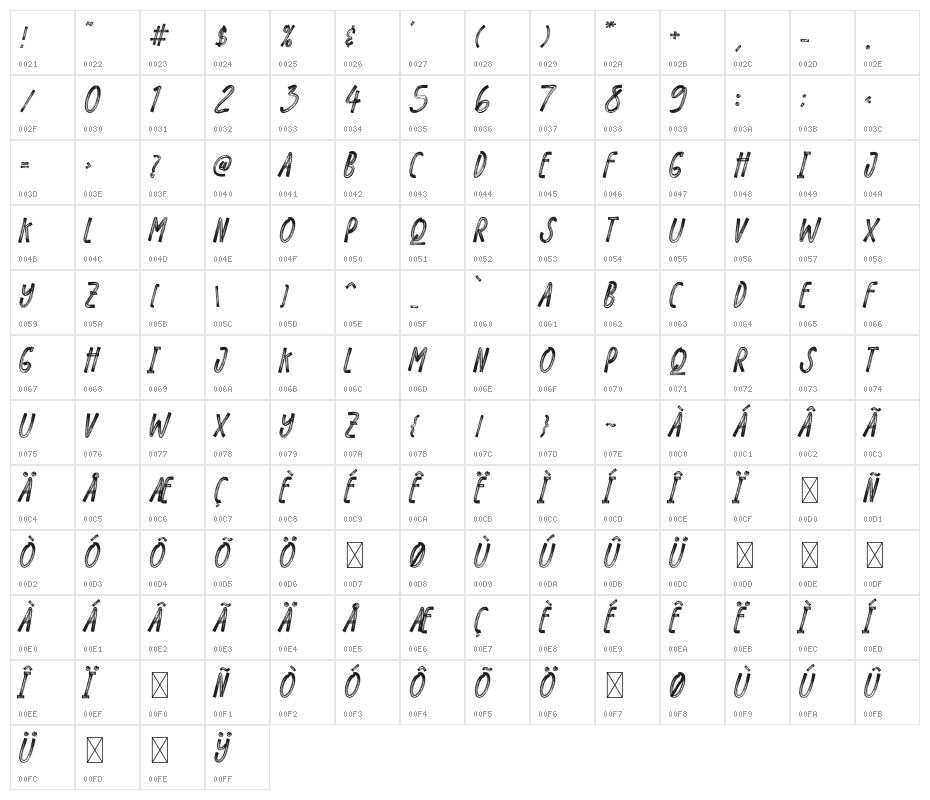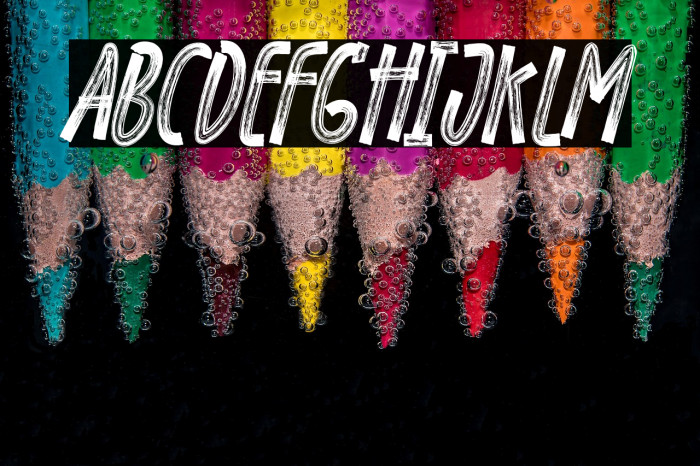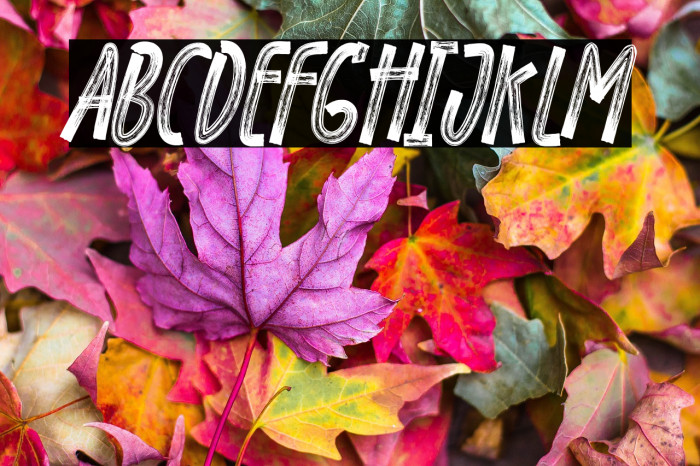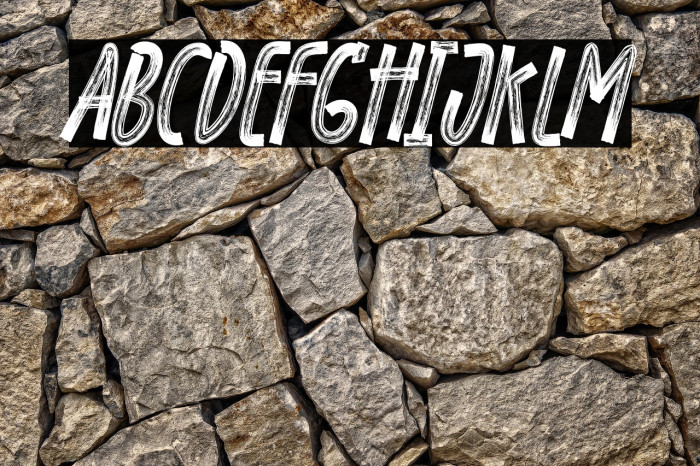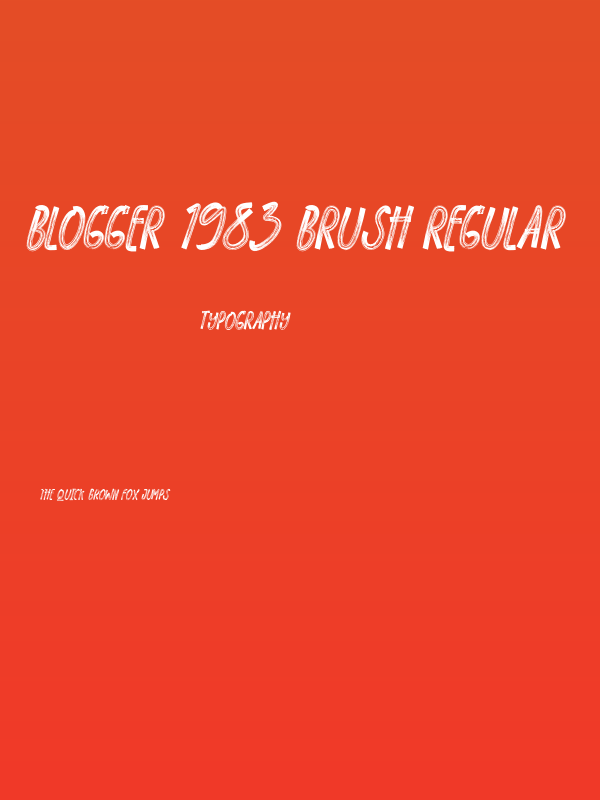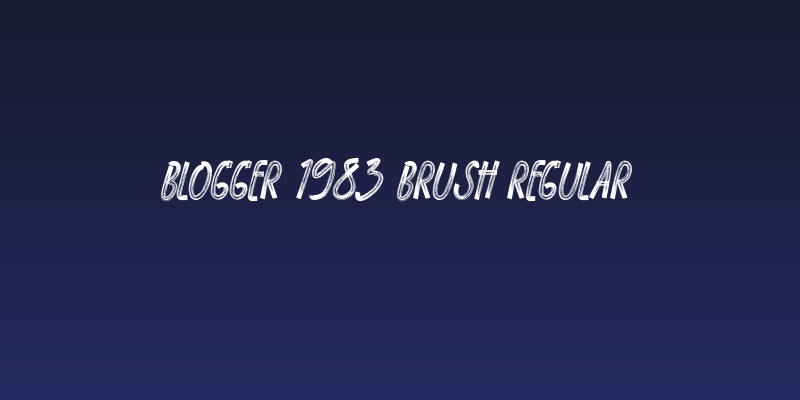
BLOGGER 1983 BRUSH Regular Font
BLOGGER 1983 BRUSH Regular Description
This font features a dynamic and energetic brush style, characterized by its bold and expressive strokes. The letters are crafted with a hand-drawn appearance, giving them a lively and informal feel. Each character exhibits a unique texture, with varying thicknesses that create a sense of movement and spontaneity. The uppercase and lowercase letters maintain a consistent style, while the numerals and special characters complement the overall aesthetic. This font is ideal for projects that require a personal touch, capturing attention with its artistic flair.
| Proposed Projects | Ideal for posters, branding, social media graphics, and creative projects that require a lively, artistic touch. |